Typography plays a crucial role in setting the tone for any design, especially when it comes to horror and spooky-themed projects. The right font can evoke fear, suspense, or an eerie atmosphere, making it perfect for Halloween posters, scary movie titles, book covers, and more. Bold, jagged, or ghostly typefaces transform simple text into haunting visuals that captivate audiences.
In this article, we present a collection of chilling and freaky fonts that are tailor-made for horror-inspired creations. Each font embodies a unique creepy character, helping your designs convey terror and intrigue with just the right amount of fright.
1. Torn Flesh – A Shredded Nightmare Come to Life
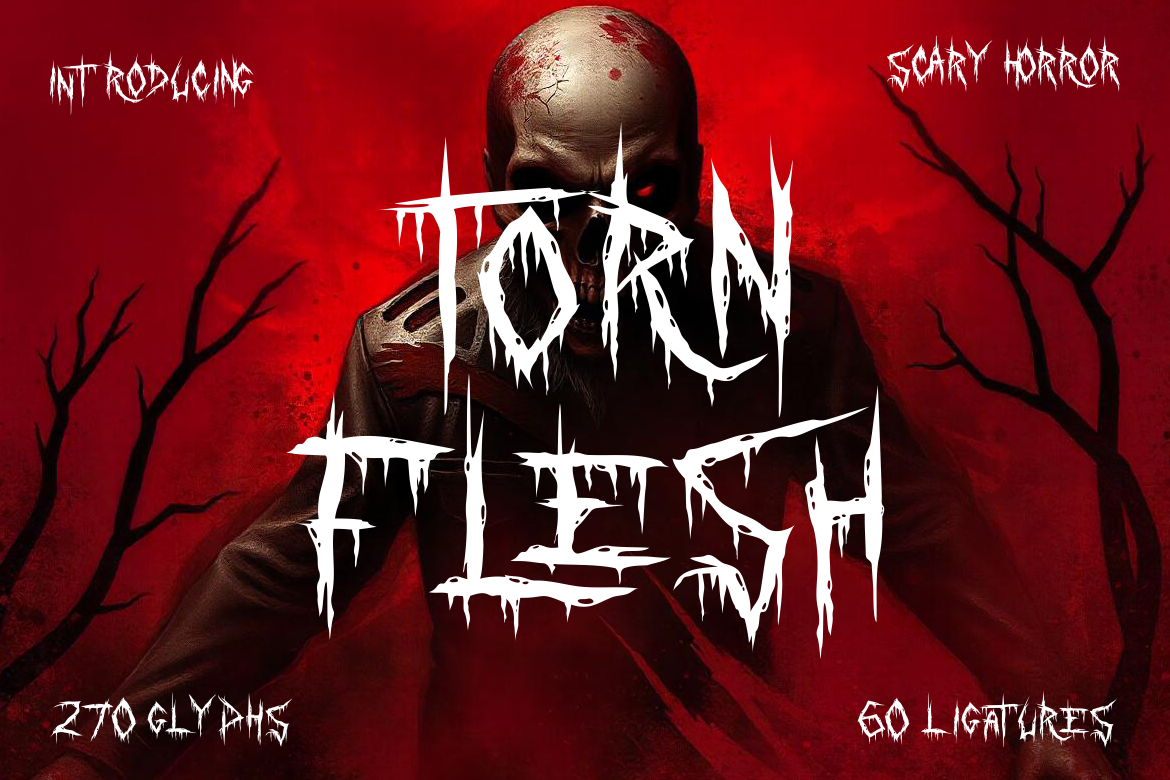
Torn Flesh delivers a ripped and jagged texture that resembles torn fabric or flesh. Features include:
- Distorted, uneven letterforms that simulate a shredded effect.
- A raw and brutal appearance perfect for horror movies and gore-themed designs.
- Excellent for creating terrifying posters, book covers, and video game titles.
This font brings visceral horror to life, making it ideal for projects that need a gory and unsettling edge.
2. Smoky Ghost – Wisps of Fear and Mystery
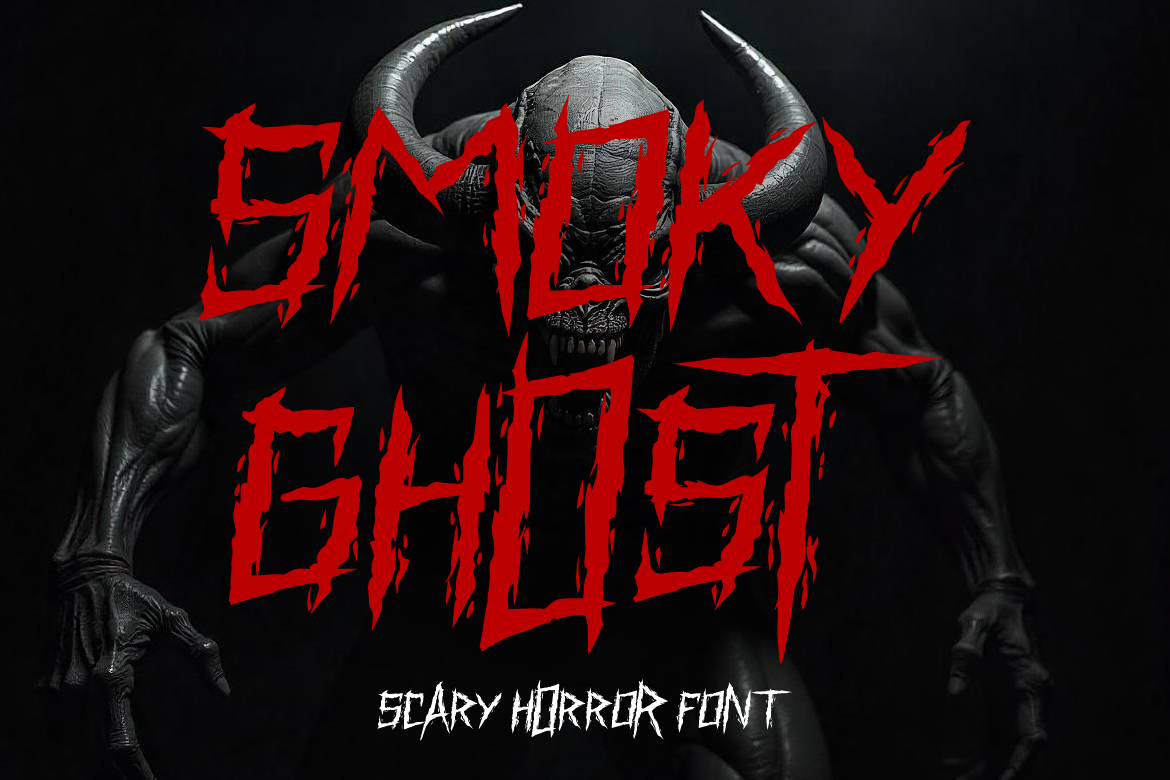
Smoky Ghost captivates with its eerie, smoky appearance. Key attributes include:
- Ghostly, mist-like strokes that give a supernatural effect.
- Perfect for haunted house advertisements, ghost stories, and Halloween banners.
- A chilling aura that conveys mystery and the paranormal.
Use Smoky Ghost to add a spectral touch to your designs, making them perfect for spooky atmospheres.
3. The Night Lamp – Shadowed and Mysterious
The Night Lamp combines shadowy effects with bold, spooky lettering. Its features include:
- Dark, shadowed edges that enhance depth and horror.
- A classic spooky style suitable for Halloween invitations and eerie signage.
- Versatility for movie titles, book covers, and haunted attraction branding.
The Night Lamp evokes a chilling, shadow-filled ambiance perfect for nighttime terrors.
4. Shaky Halloween – Tremors of Terror
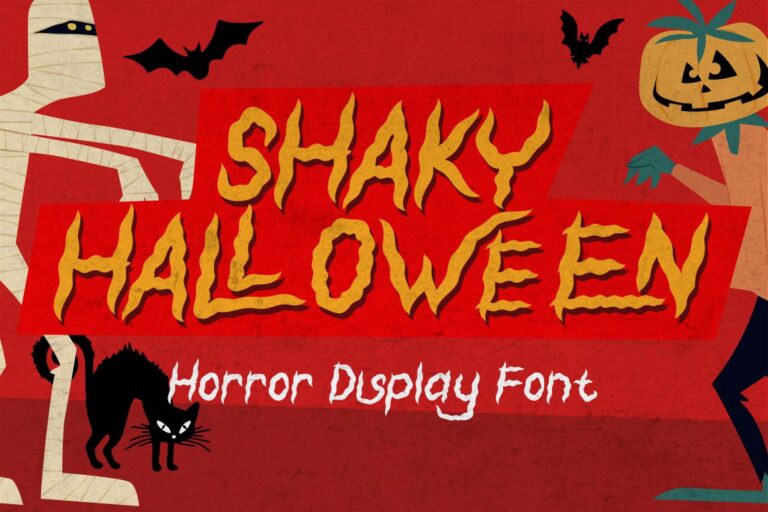
Shaky Halloween embodies the trembling fear often associated with the unknown. Notable characteristics:
- Jagged, shaky letterforms that simulate fear and instability.
- Great for spooky-themed party posters, horror novels, and seasonal decorations.
- A playful yet spooky look that mixes fright with fun.
Shaky Halloween adds a whimsical frightful charm to any design needing a jittery, spooky touch.
5. Spookies Identity – The Essence of Haunting
Spookies Identity delivers classic Halloween horror vibes. Key features include:
- Curved, twisted strokes with a hand-drawn feel.
- Ideal for children’s Halloween events, playful branding, and costume party flyers.
- A mix of fun and eerie suitable for light-hearted spooky designs.
Spookies Identity is perfect for projects that balance fear with a playful twist.
6. Stranger Creature – A Monster of a Typeface
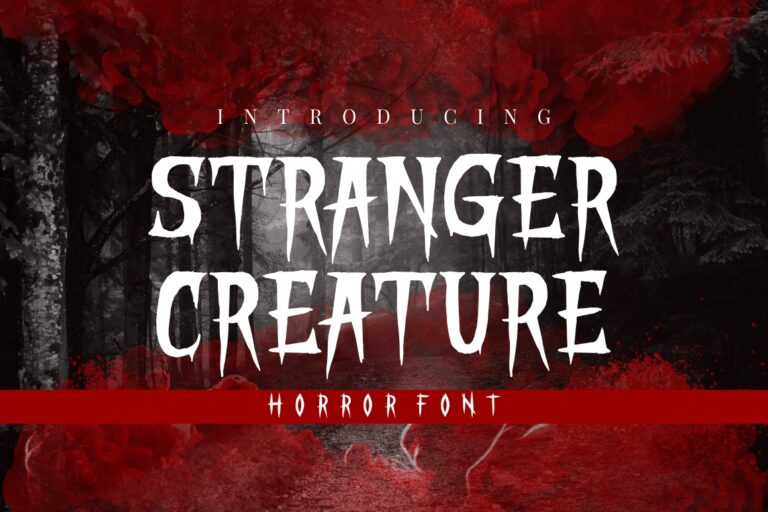
Stranger Creature boasts bold, monstrous characters that are larger than life. Features include:
- Thick, imposing strokes with quirky, exaggerated letter shapes.
- Excellent for horror film titles, bold headlines, and monster-themed posters.
- A dramatic, terrifying feel that commands attention.
Stranger Creature is perfect for creating imposing, creature-like designs that grab the viewer’s gaze.
Why Horror Fonts Matter for Spooky Designs
Using freaky and horror-themed fonts adds an immediate emotional impact to your visuals. They:
- Set the mood: Horror fonts convey fear, suspense, and eeriness at first glance.
- Enhance engagement: Bold and freaky designs captivate audiences and evoke curiosity.
- Define genre: Fonts can establish the tone of horror novels, movies, or Halloween decorations.
Fonts like Torn Flesh, Smoky Ghost, and The Night Lamp bring fear to life, ensuring your designs leave a lasting impression.
Conclusion
Freaky, spooky fonts are essential for horror-themed projects. From shredded textures to smoky wisps and monstrous strokes, the right typeface transforms ordinary text into terrifying art. Explore these top horror fonts to create spine-chilling designs that haunt and mesmerize.